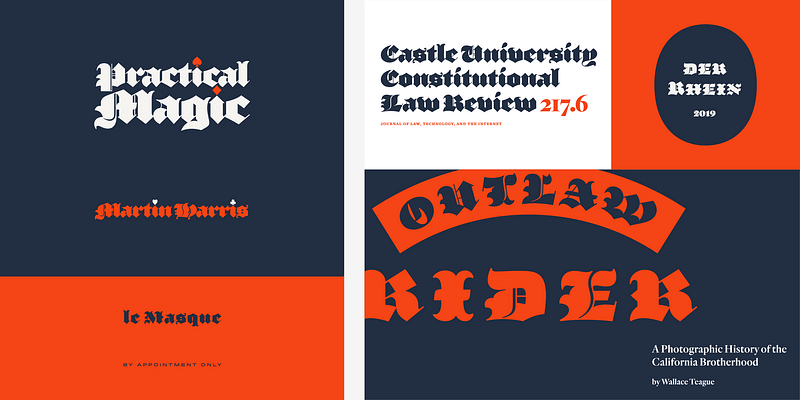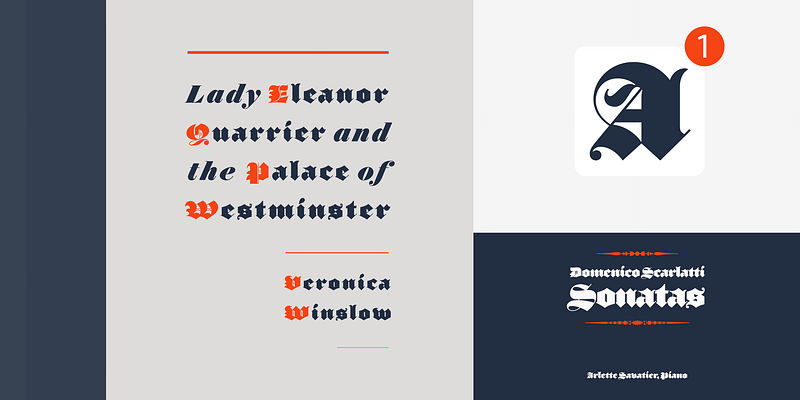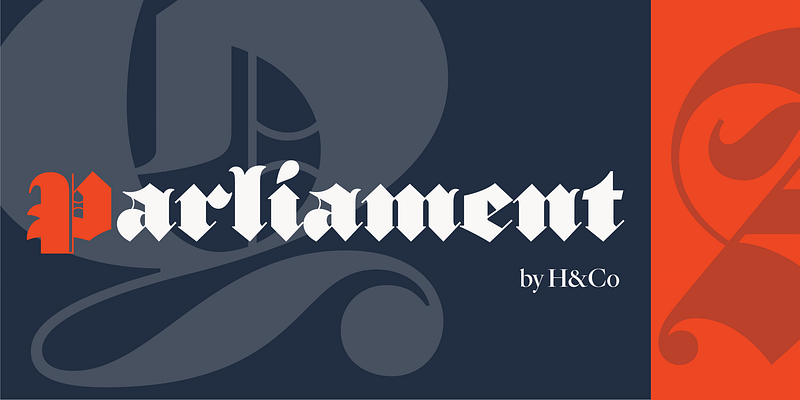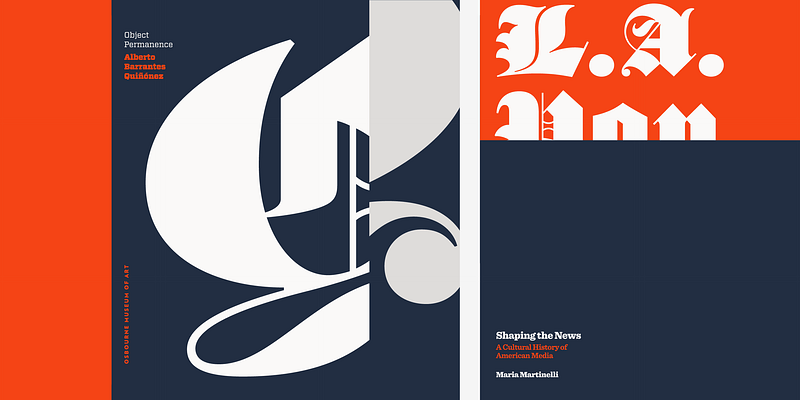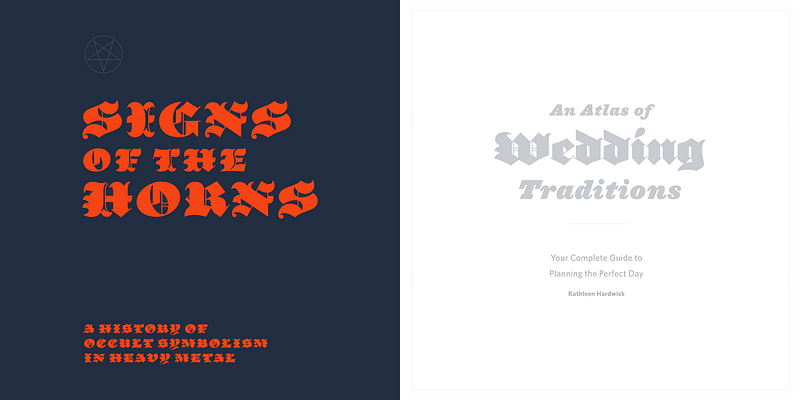
The Parliament typeface was designed by Jonathan Hoefler beginning in 1995. Contributions were made by Andy Clymer, Sara Soskolne, Troy Leinster, Colin M. Ford, and Jordan Bell. A burlesque typeface in the Regency Blackletter style, Parliament was inspired by the ‘Four-line Pica Black No. 1’ typeface of William Caslon Jr (1821), whose enigmatic design for the letters E, G, I, N, V and Y hinted at a broader ambition to modernize the arcane shapes of the gothic alphabet’s capital letters. Parliament completes this project for the first time by including two sets of alphabets, one archaic and one modern, along with a third set of ‘small caps’ that restores to the blackletter the versatility of Roman type. Parliament was first used for the 1998 ATypI Conference in Lyon, and was published by Hoefler&Co in 2022.